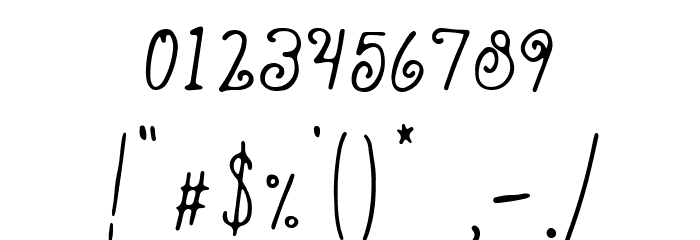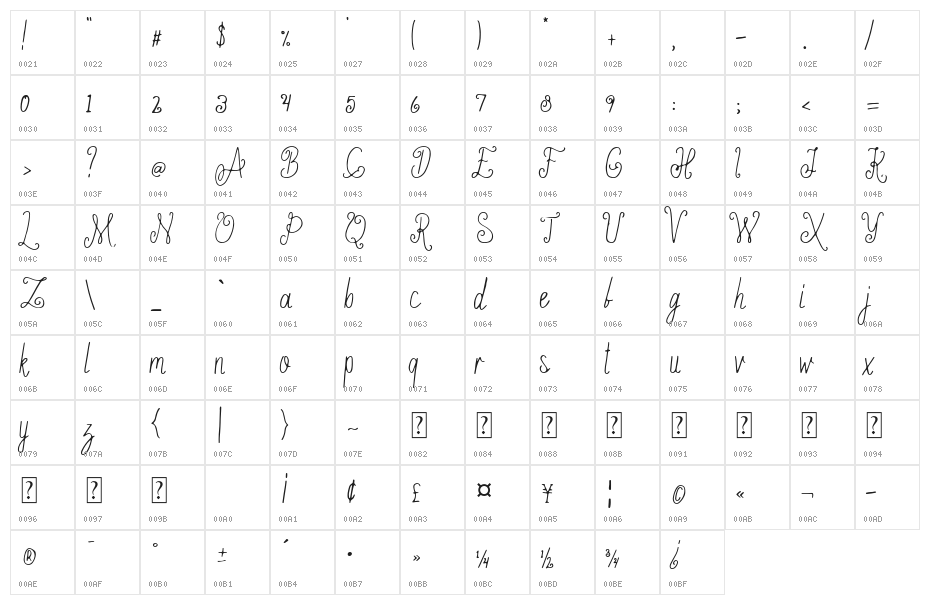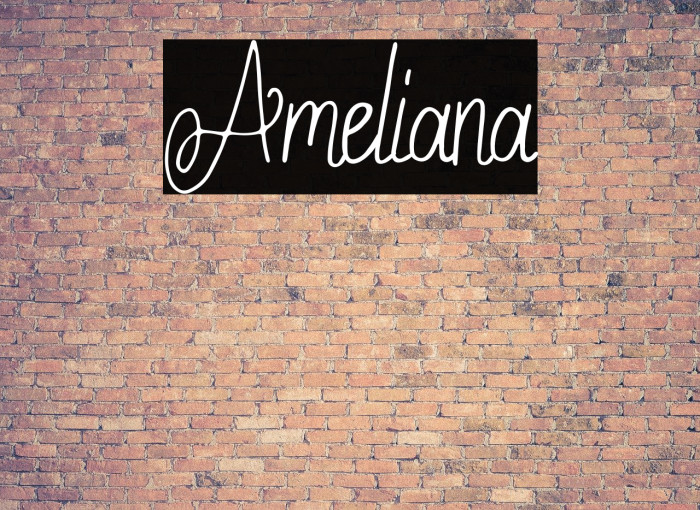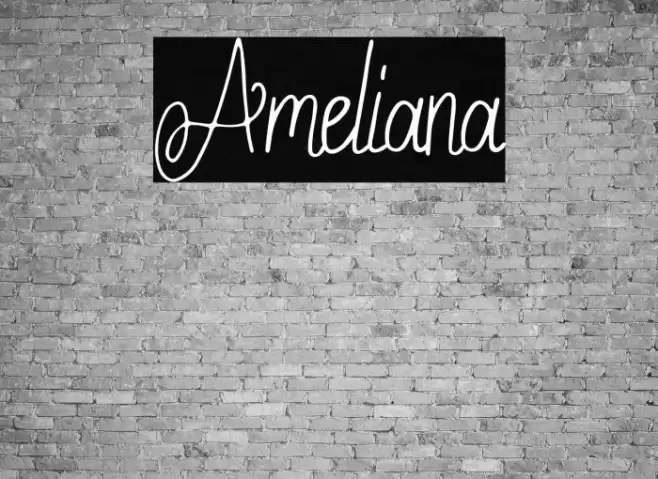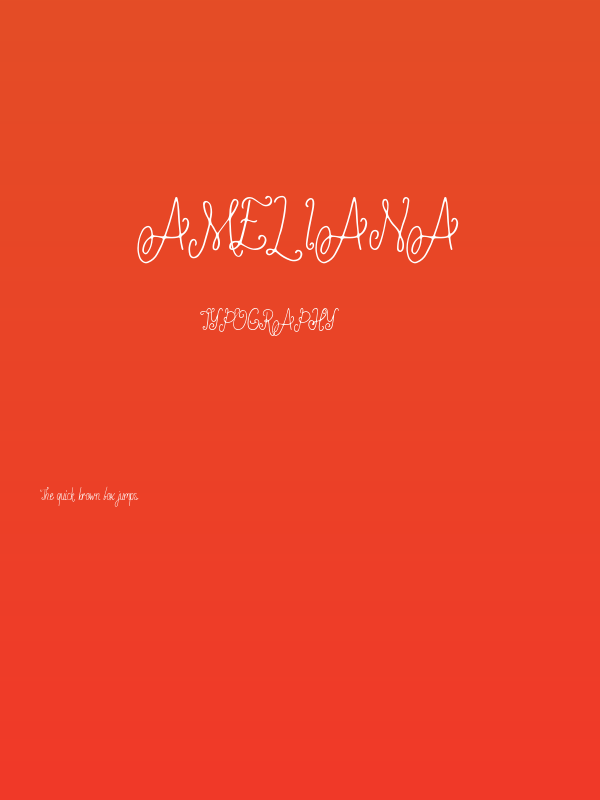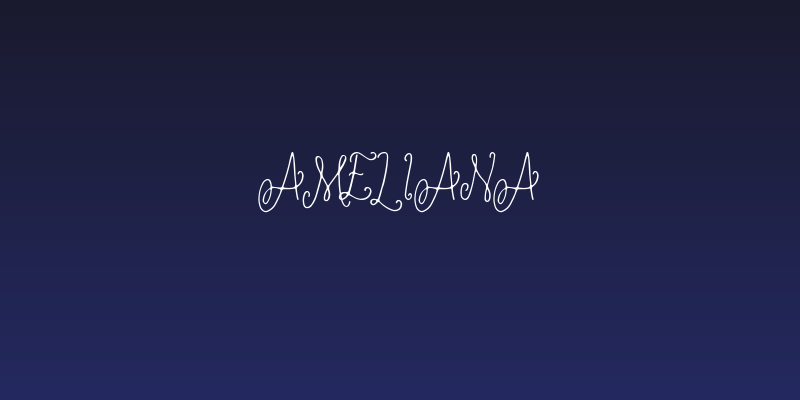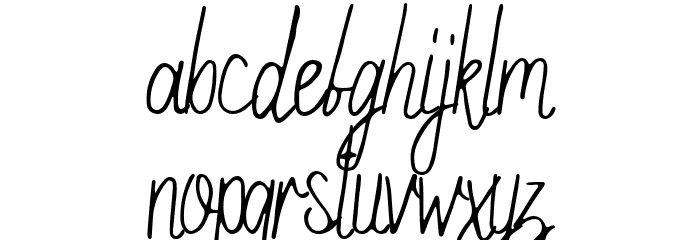
Ameliana Font
Ameliana Description
This font features an elegant and whimsical script style with a playful and artistic flair. The uppercase letters are characterized by their flowing, interconnected loops and swirls, giving them a sense of movement and grace. The lowercase letters maintain a consistent style, with smooth curves and a slightly informal touch. Numbers and special characters follow the same aesthetic, ensuring a cohesive look across all elements. The font's overall appearance is both sophisticated and approachable, making it suitable for a variety of creative applications.